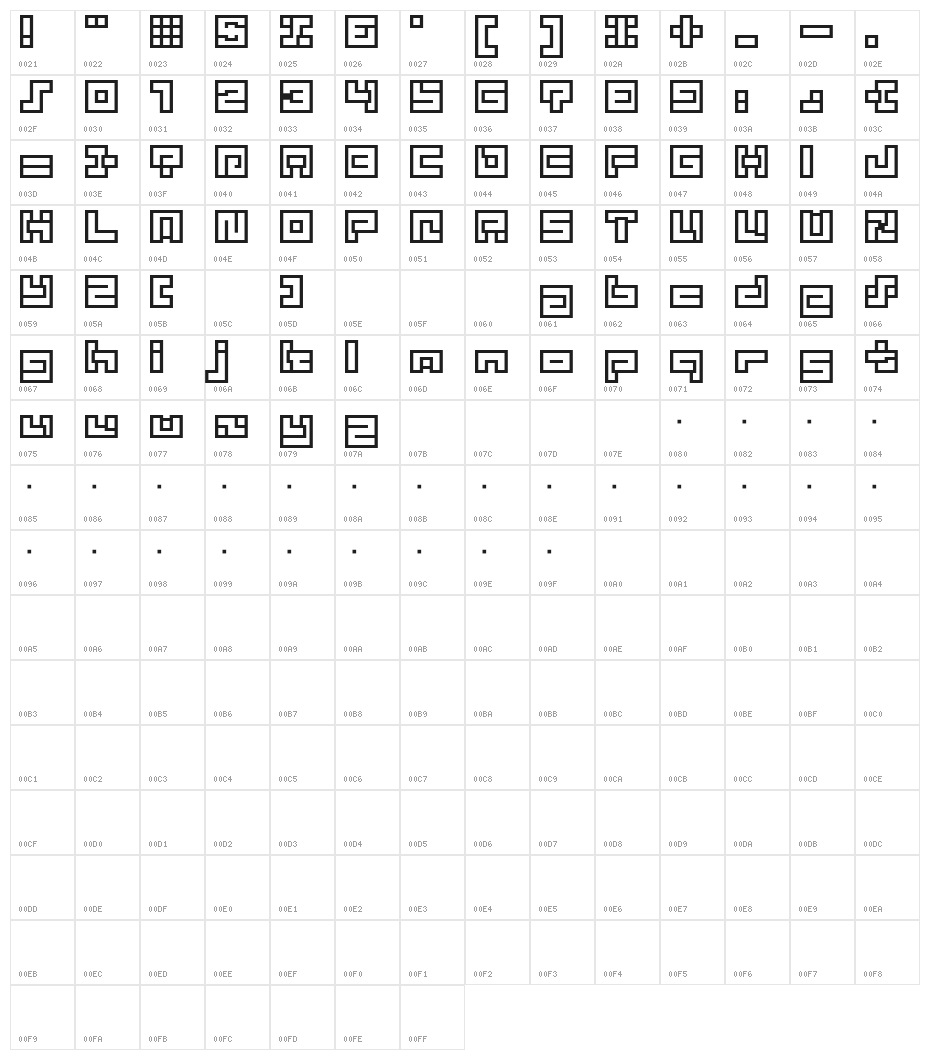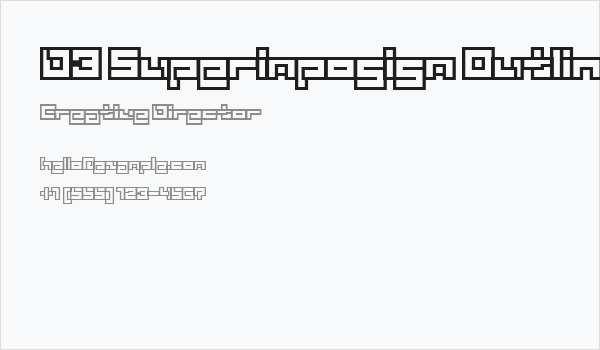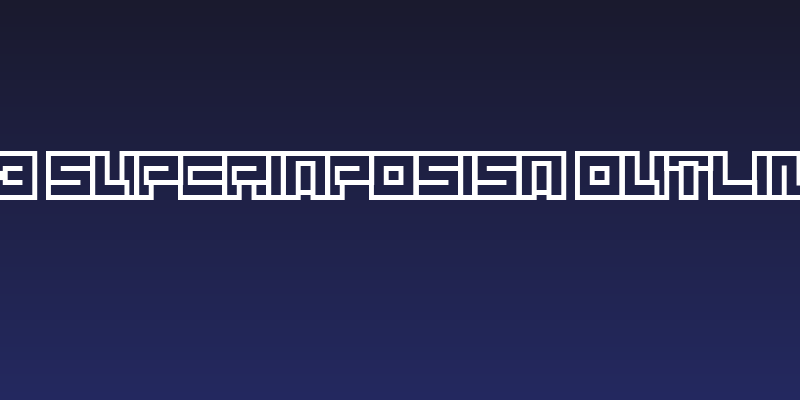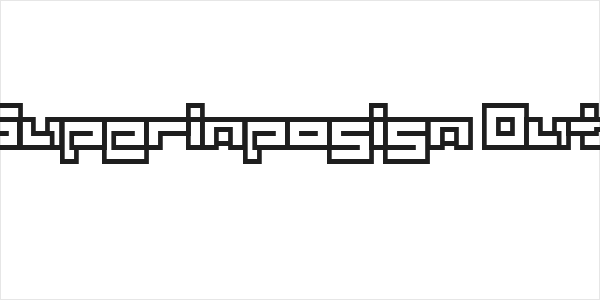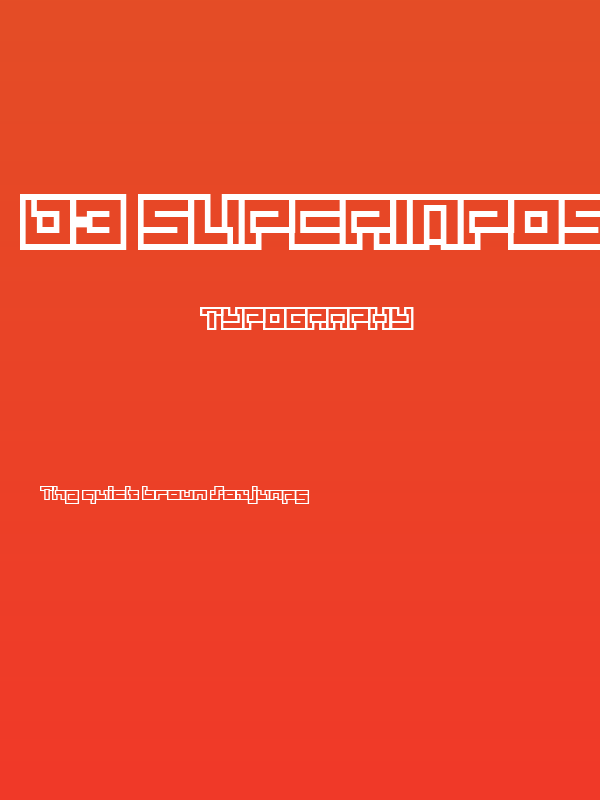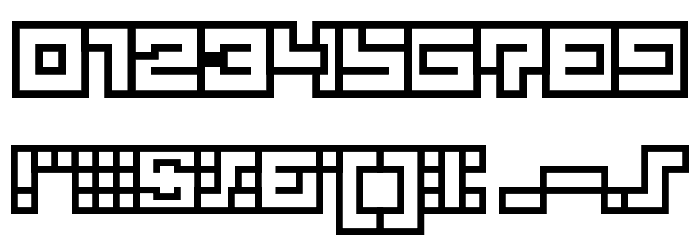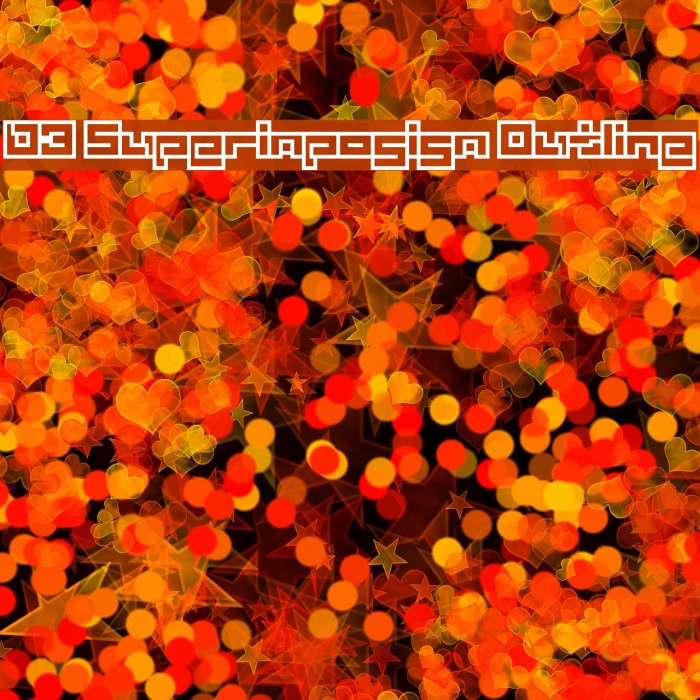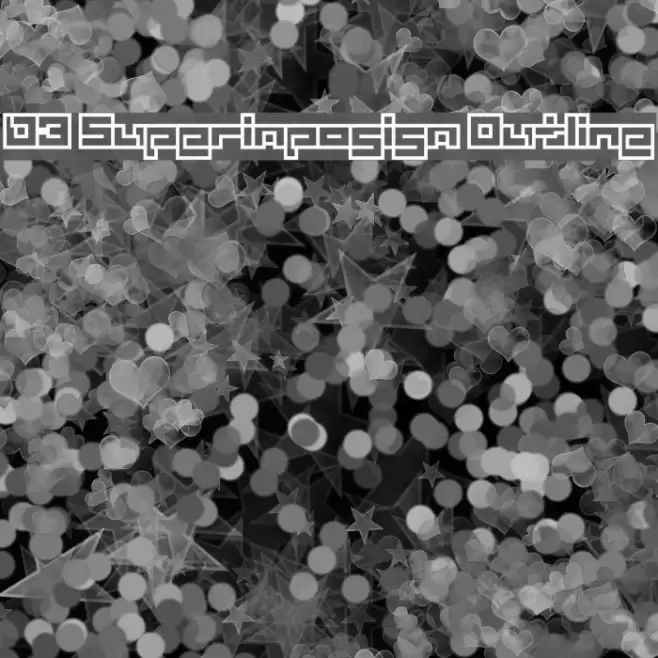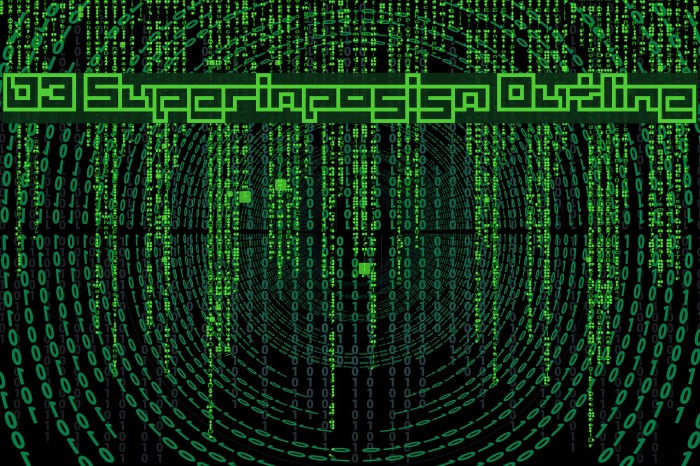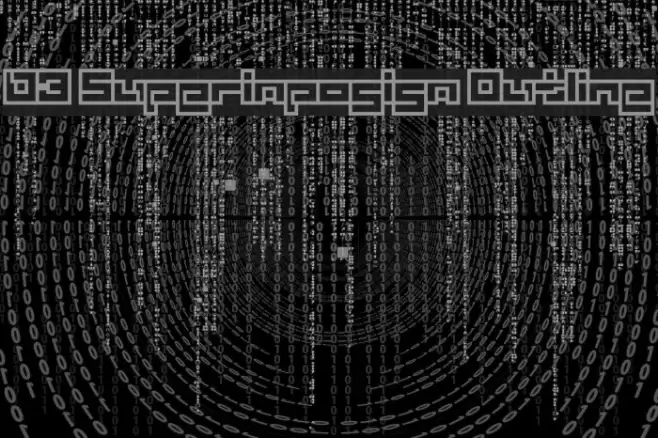
D3 Superimposism Outline Font
D3 Superimposism Outline Description
This font features a unique, geometric design with a maze-like structure. Each character is composed of bold, interconnected lines that create a striking outline effect. The style is highly decorative, making it stand out with its intricate patterns and angular shapes. The uppercase and lowercase letters maintain a consistent height, contributing to a uniform appearance. Numbers and special characters follow the same design principles, ensuring a cohesive look across all elements. The font's distinct style is ideal for projects that require a futuristic or tech-inspired aesthetic.
| Use Case | Logos, Headlines, Posters |
| Proposed Projects | Ideal for sci-fi themed designs, tech branding, video game titles, and digital art projects. |